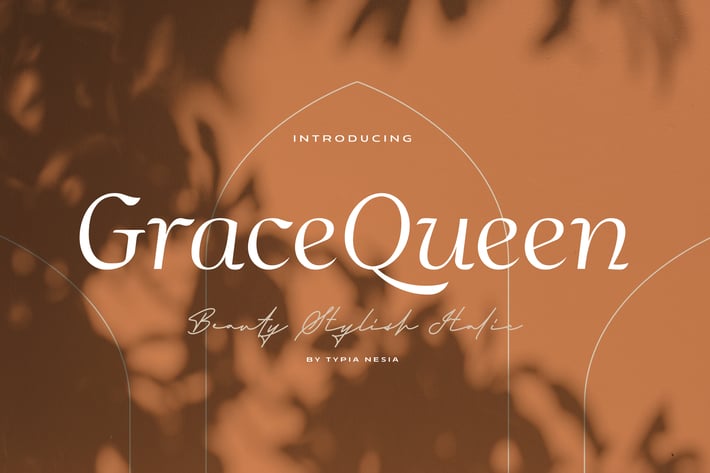
Grace Queen - Beauty Stylish Italic Font
Grace Queen - Elegant Glamour and Stylish Italic Serif - Expressive Modern Classy and Beauty Italic Font.
Grace Queen font comes with some alternates and ligatures. You can combine it to make a perfect typography design. It is perfect for your up coming projects. Such as luxury logo and branding, classy editorial design, woman magazine, cosmetic brand, fashion promotional, art gallery branding, museum, historical of architectural, boutique branding, stationery design, blog design, modern advertising design, card invitation, art quote, home decor, book/cover title, special events and any more.